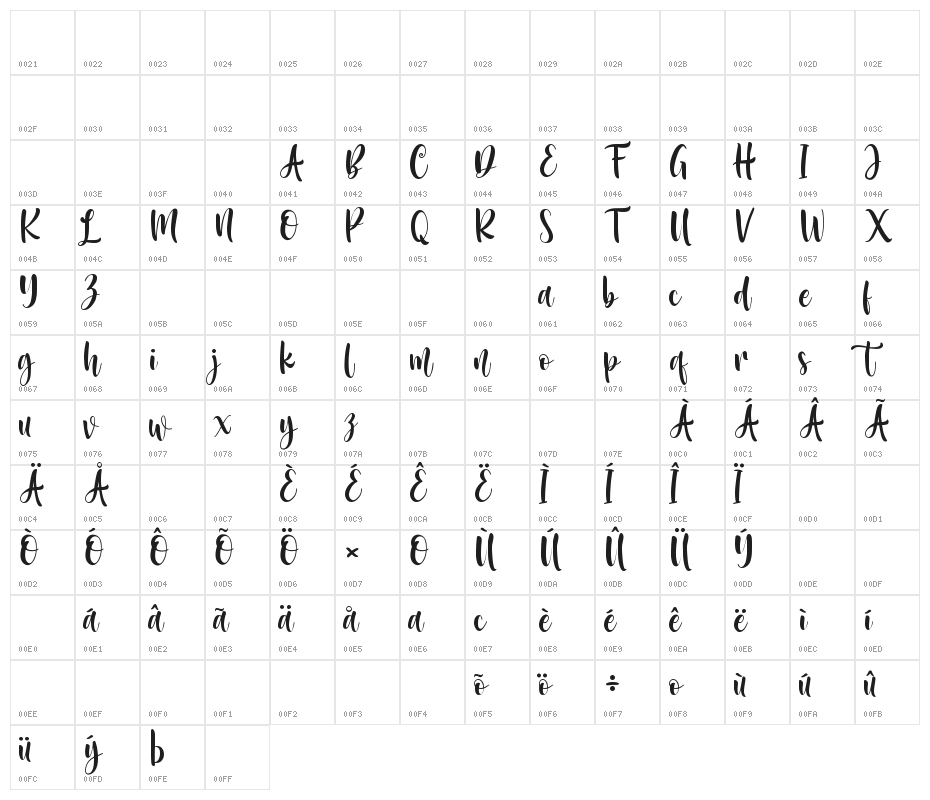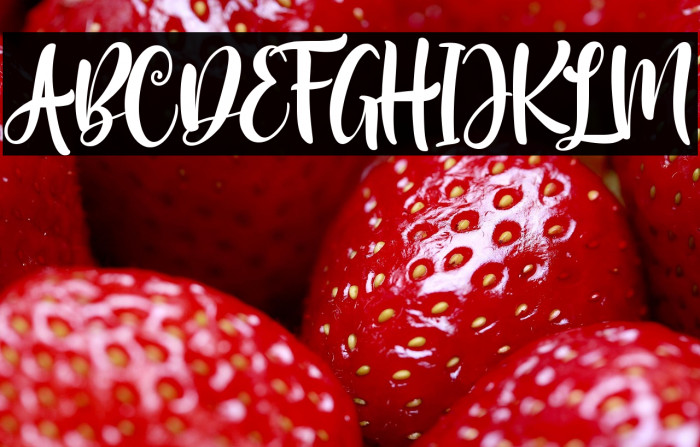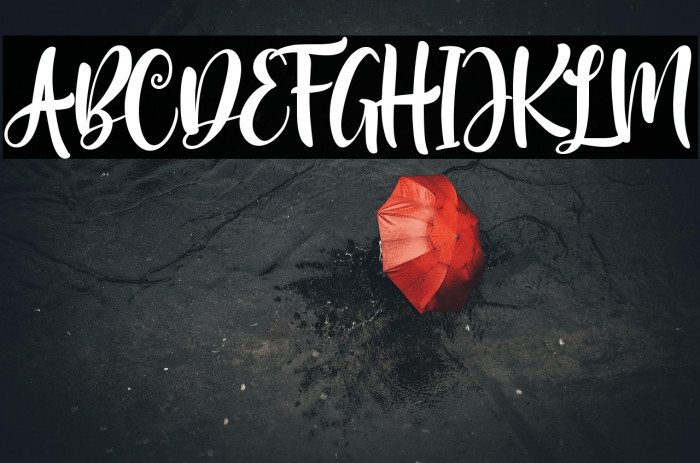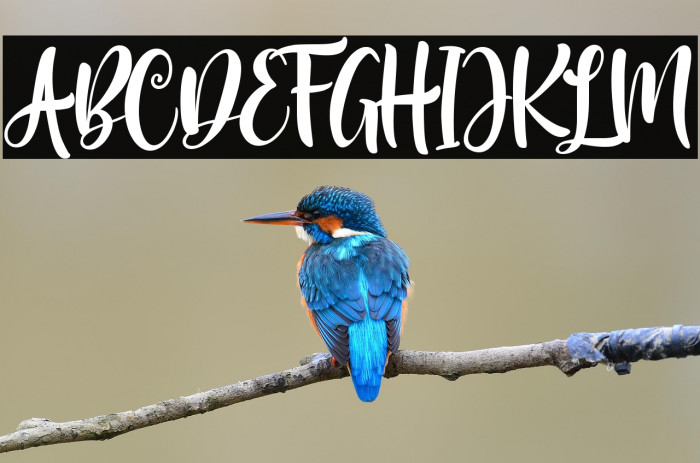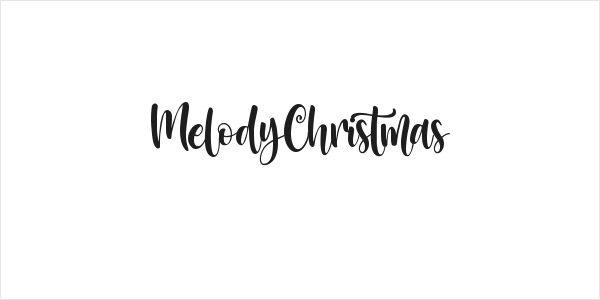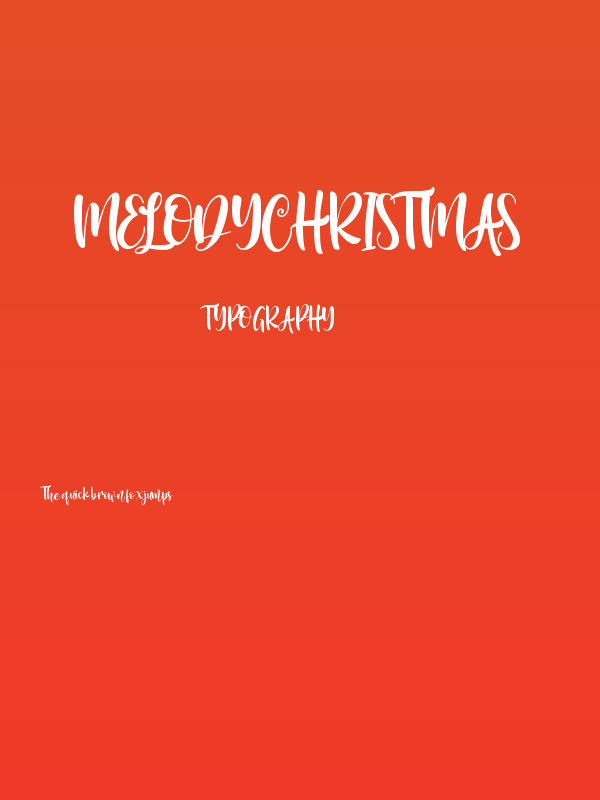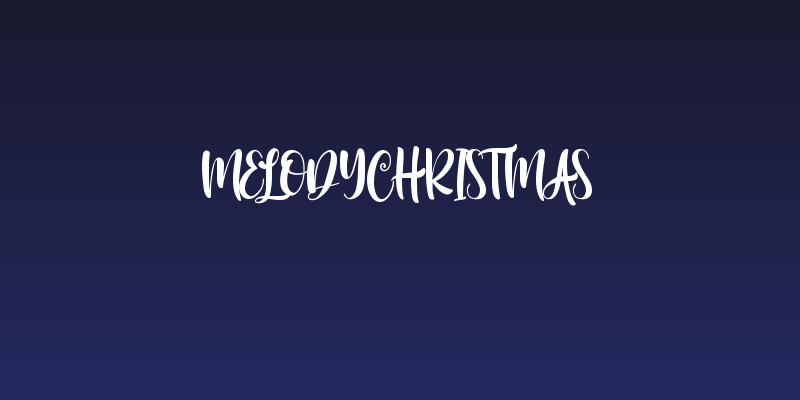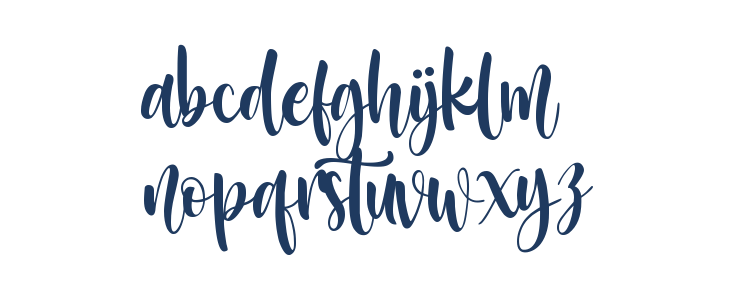
MelodyChristmas Font
MelodyChristmas Description
This font exudes a lively and festive spirit, characterized by its flowing, cursive style that mimics elegant handwriting. The letters are bold and feature a playful bounce, with varying stroke widths that add a dynamic rhythm to the text. The uppercase letters are grand and sweeping, while the lowercase letters maintain a charming, whimsical flair. The font's overall appearance is both sophisticated and approachable, making it ideal for conveying warmth and creativity. Its decorative nature is perfect for capturing attention and adding a personal touch to any design.